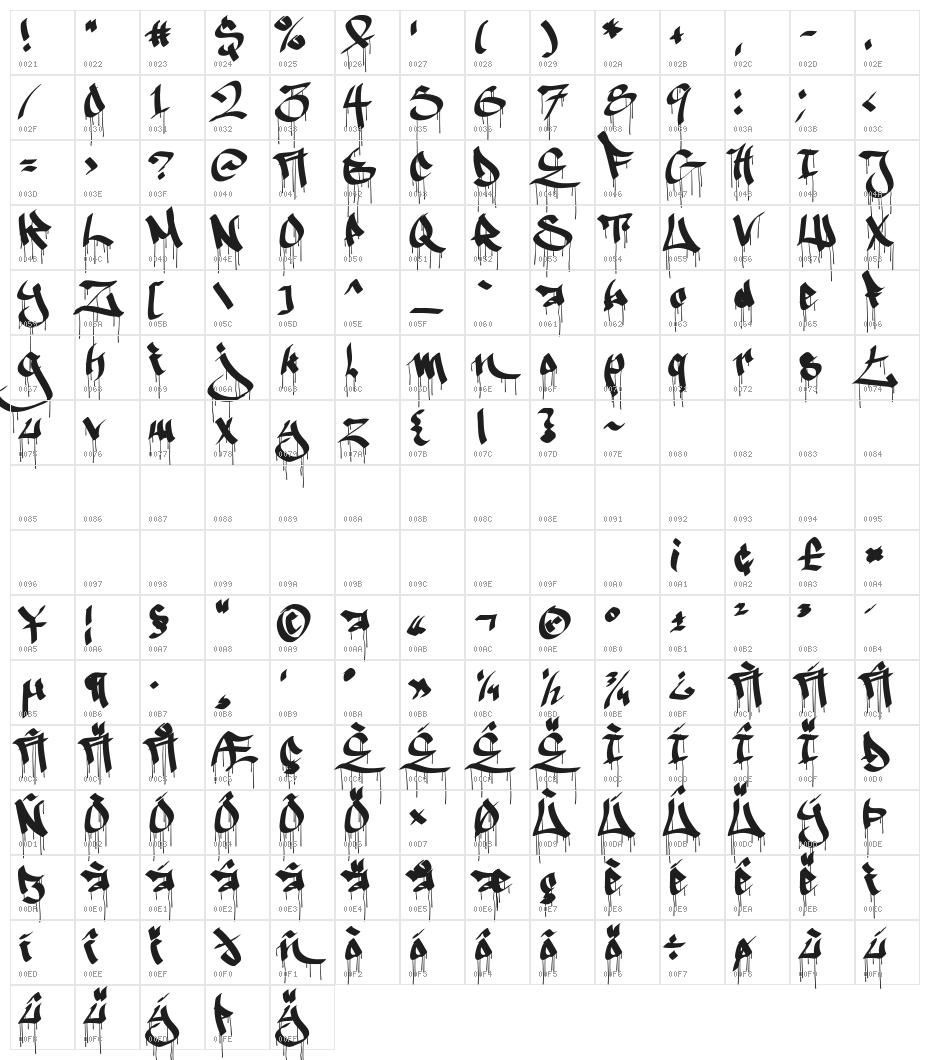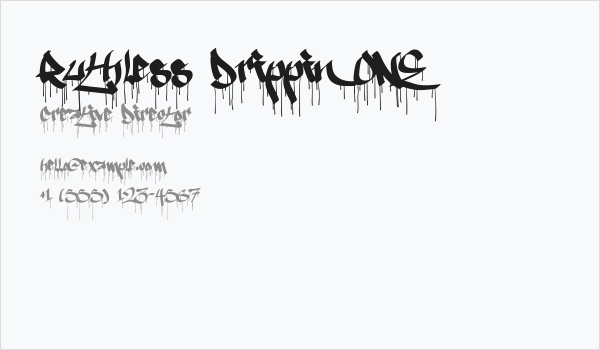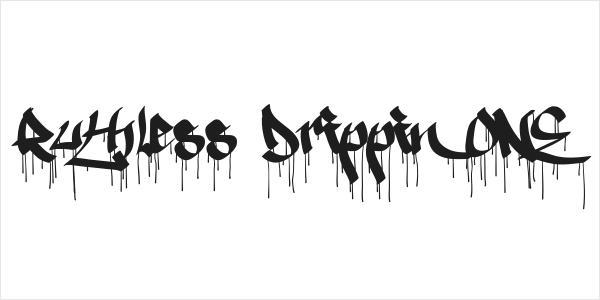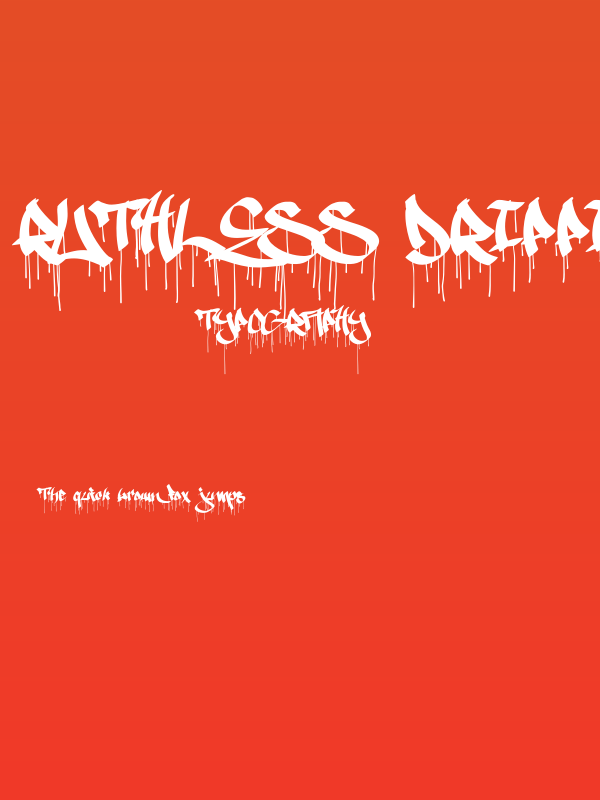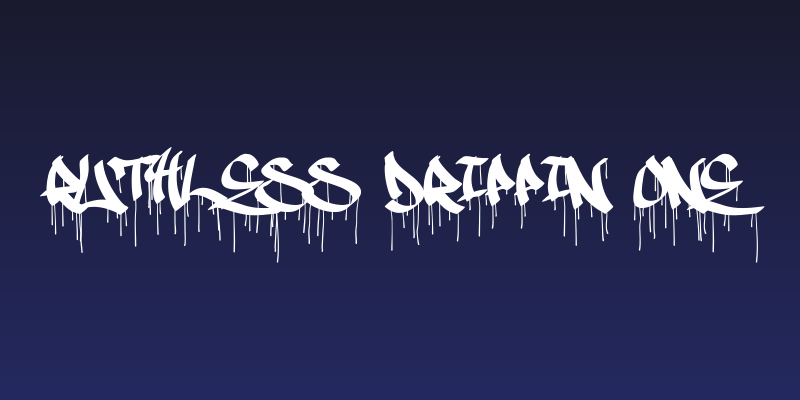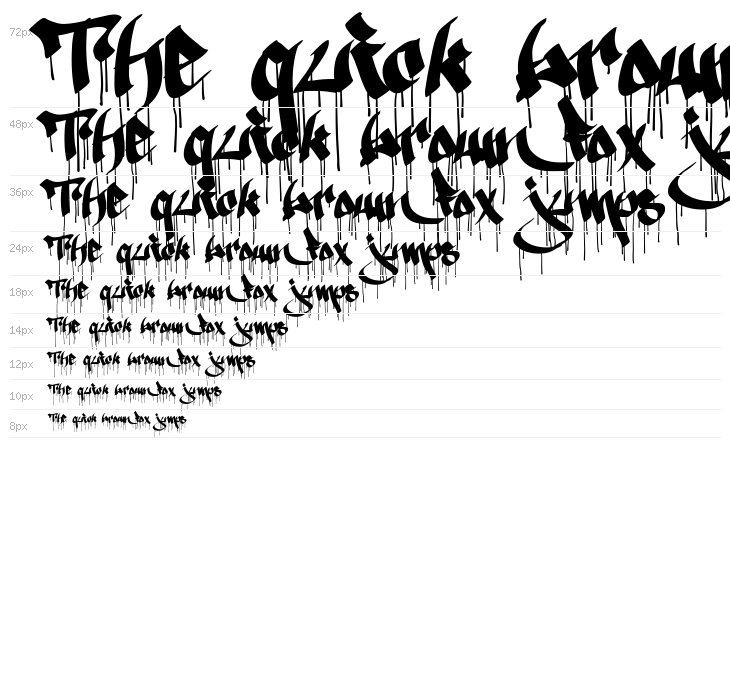
Ruthless Drippin ONE Font
Ruthless Drippin ONE Description
This font exudes a bold, rebellious spirit with its graffiti-inspired design. The letters are characterized by dripping effects, reminiscent of spray paint on a wall. Each character is uniquely styled, with sharp angles and dynamic curves that create a sense of movement and energy. The uppercase and lowercase letters maintain a consistent style, while the numbers and special characters add to the overall urban aesthetic. The font's edgy appearance makes it stand out, capturing attention with its artistic flair.
Overall StyleModern, Urban, Edgy
Use CaseLogos, Posters, Street Art, Album Covers
Proposed ProjectsIdeal for street art projects, urban-themed designs, music album covers, and edgy branding.